Book of the Month (October 2024): “Man and Writing”
Today, I would like to introduce “Man and Writing” (edited by Fumio Yajima / composed by Ikkō Tanaka).
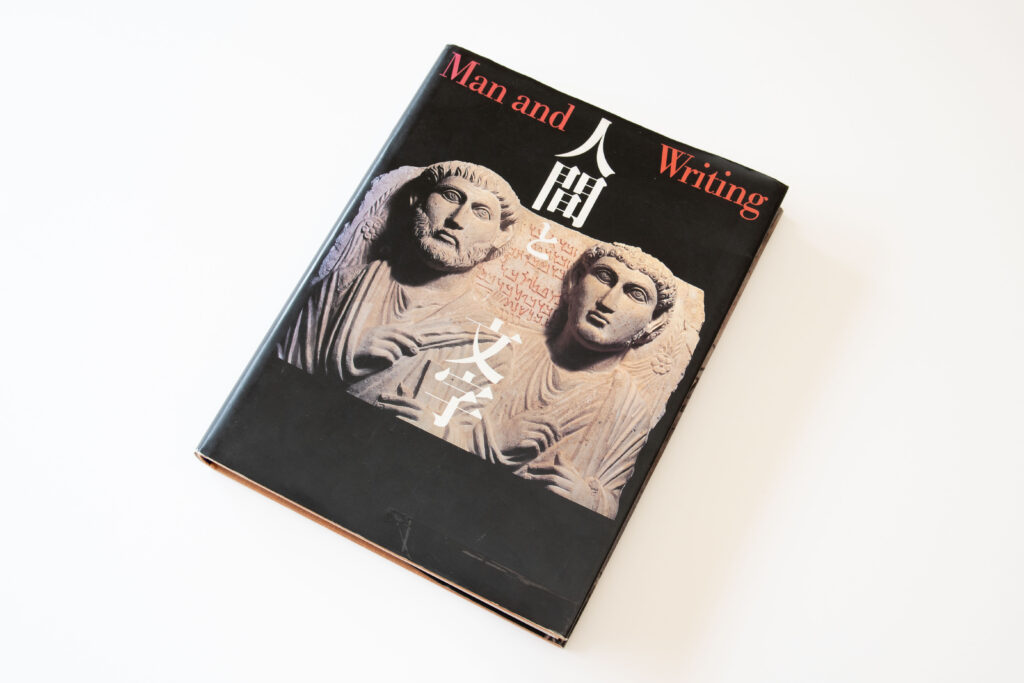
This book can teach you about the alphabet, the Egyptian alphabet, the Mesopotamian alphabet, the kanji alphabet, and other characters including undeciphered characters, as well as the history of alphabets from the birth of characters.
There are explanations on various wall paintings, statues, etc. engraved with characters, and episodes from the time of collection, deciphering statuses, and explanations involving the “civilizations” closely connected to the characters. You can learn about the characters used together with the background of the birth of the characters.
In the middle of reading the book after learning about wall paintings, inscriptions on animal bones and tortoise carapaces, and hieroglyphs, when the Greek characters close to the familiar alphabet suddenly appeared, I felt a strange excitement, as if receiving a message or contact from approximately 2000 years ago.
The book is recommended to anybody who is interested in learning about the relationship between human beings and characters across regions in the world and time, including the history of kanji, the advent of kana, and relationships between printing techniques and media.
Book Information:
“Man and Writing”
Edited by: Fumio Yajima
Composed by: Ikkō Tanaka
Publisher: Heibonsha